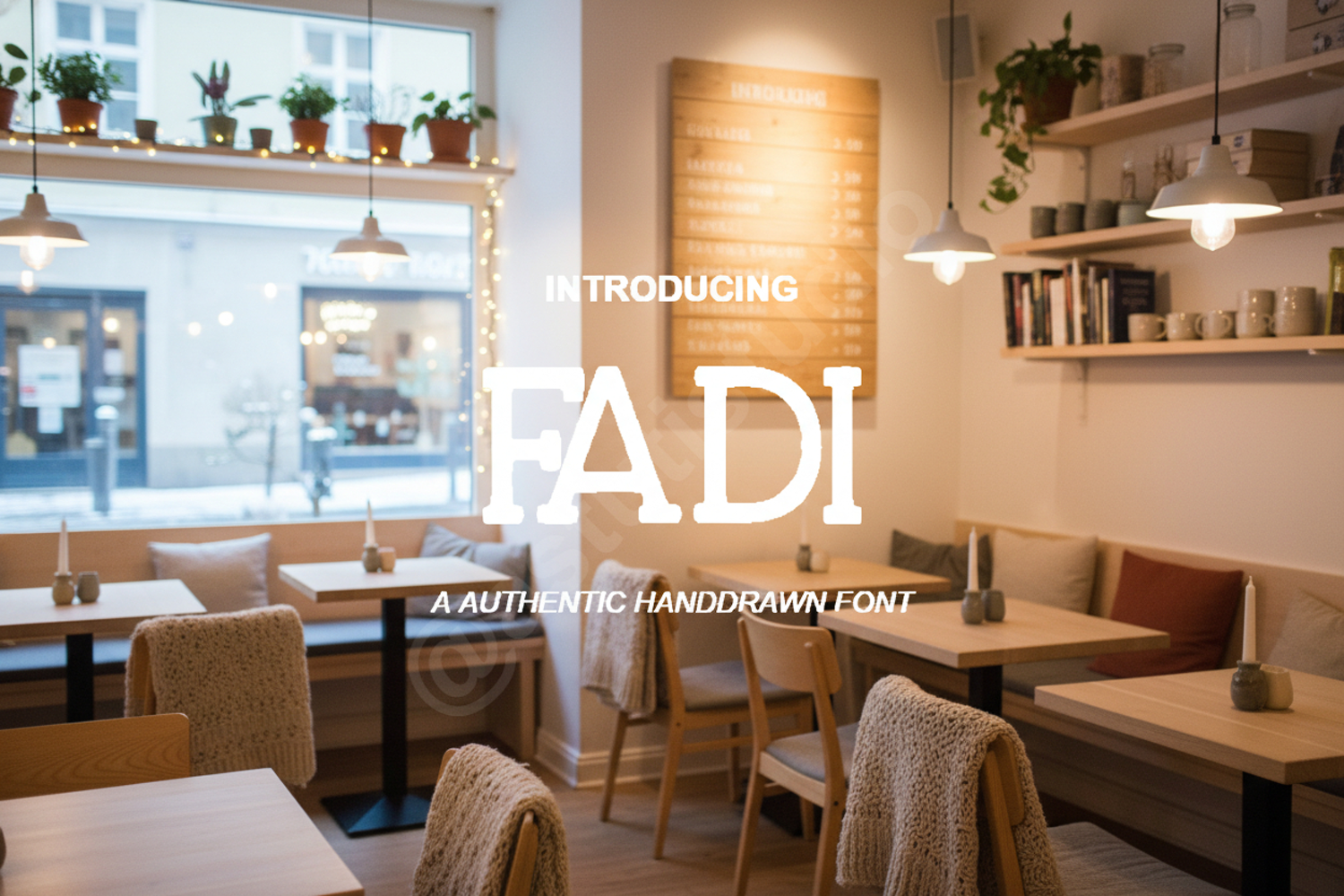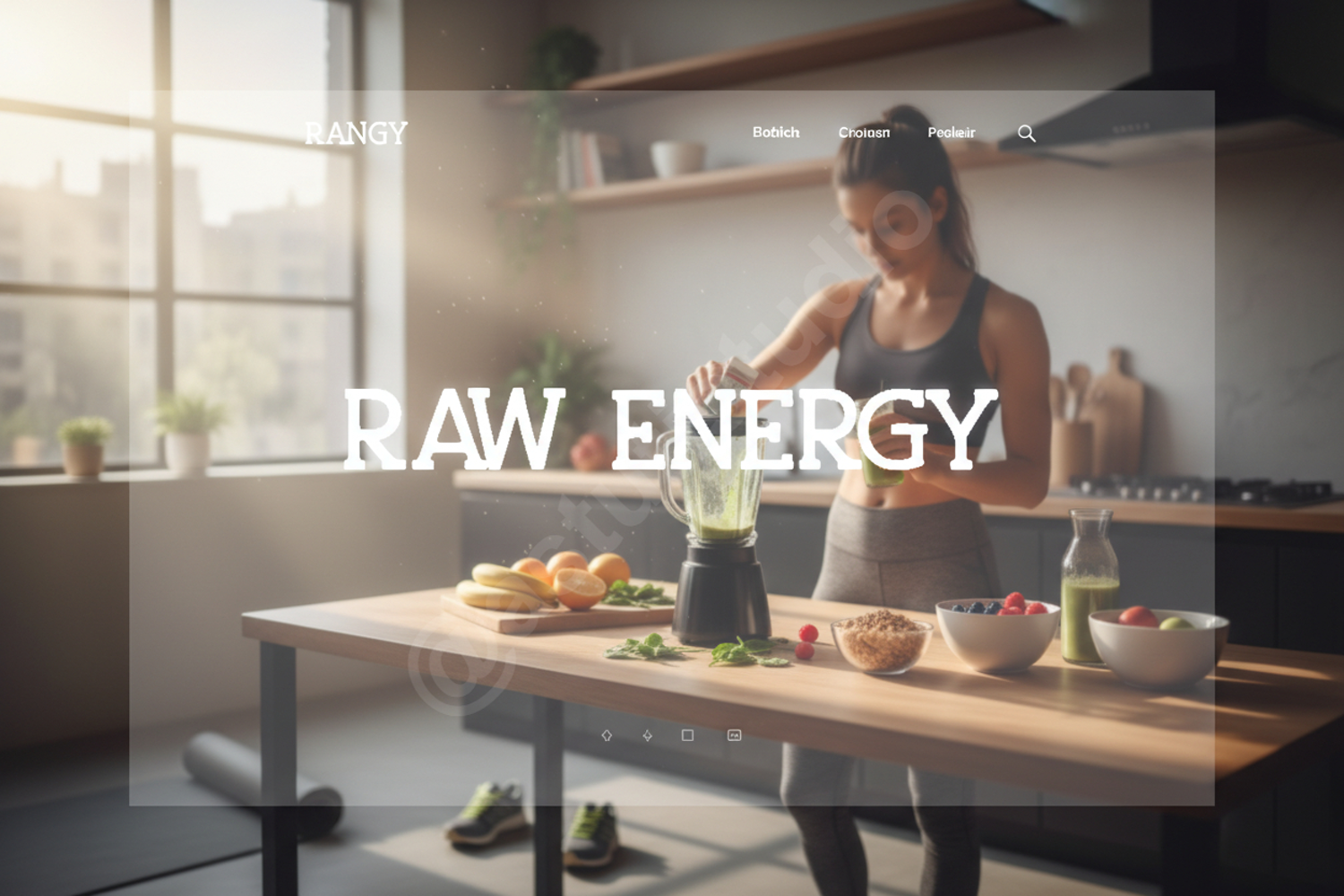
Fadi - Elegant Modern Serif Typeface
Fadi
Fadi is a premium serif font meticulously crafted to blend classic sophistication with modern flair. With its clean lines and elegant proportions, Fadi brings a touch of luxury to any creative project. Whether you are looking for a font that speaks of high-end fashion or timeless stability, Fadi is the perfect choice for designers who demand excellence and versatility.
- Full set of uppercase and lowercase letters
- Multilingual support and standard ligatures
- Branding and Visual Identity: Create memorable logos and brand marks that stand out in a crowded market.
- Wedding Invitations: Add a touch of class to stationery, RSVP cards, and event decor.
- Editorial Design: Perfect for magazine layouts, book covers, and high-end digital publishing.
- Social Media Graphics: Elevate your digital presence with sophisticated and readable typography.
- Packaging Design: Ideal for luxury goods, cosmetics, and premium product labels.